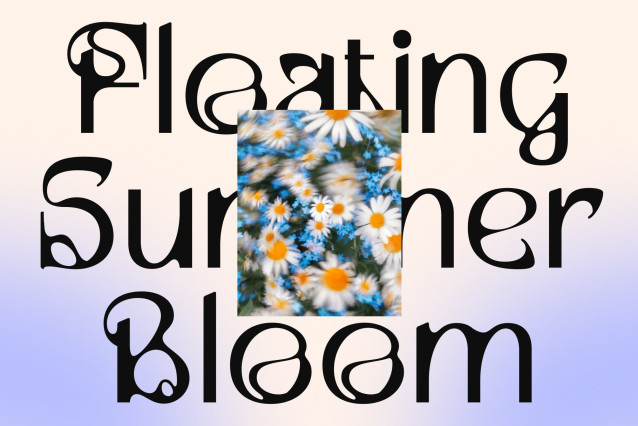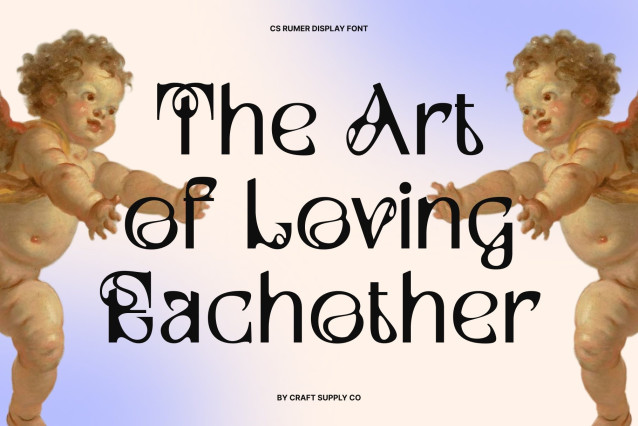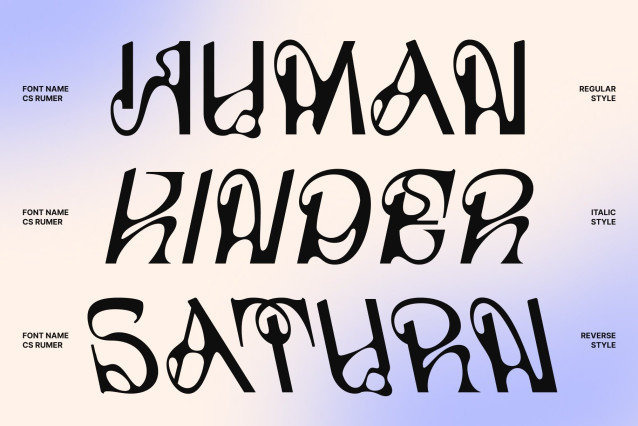
CS Rumer – Melted Sans Serif Font
CS Rumer – Melted Sans Serif with Fluid Elegance
Modern Sans Serif with Artistic Art Nouveau Influence
This is a stylish sans serif font that blends the graceful beauty of Art Nouveau with an innovative melted concept. Designed with flowing curves and organic movement, this typeface transforms traditional sans serif forms into an expressive visual statement. The result is a font that feels elegant, contemporary, and artistically distinctive, perfect for designers seeking a fresh approach to modern typography.
Elegant Letterforms with Fluid Melted Effects
The defining feature of lies in its elegant letterforms enhanced by fluid dripping details. These melted effects create a sense of motion and organic flow, giving the font a unique personality that feels both sophisticated and experimental. The contrast between clean sans serif foundations and liquid-inspired distortions produces a captivating visual rhythm that draws attention instantly.